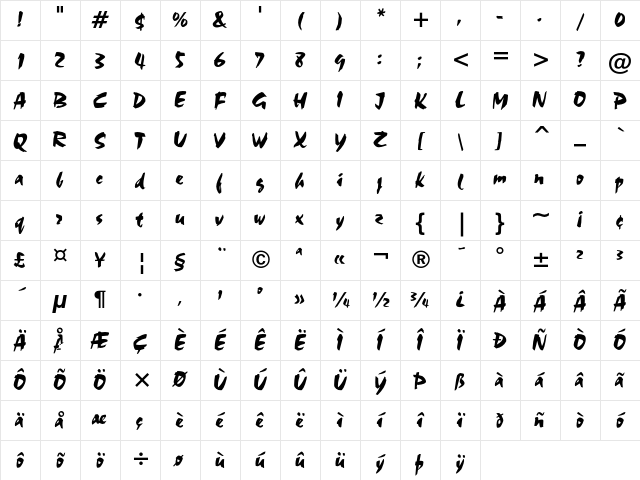
Staccato 555 Regular
Design Context for Staccato 555
Staccato 555 is a composed and adaptable typeface that performs quietly and consistently across a wide range of design contexts.